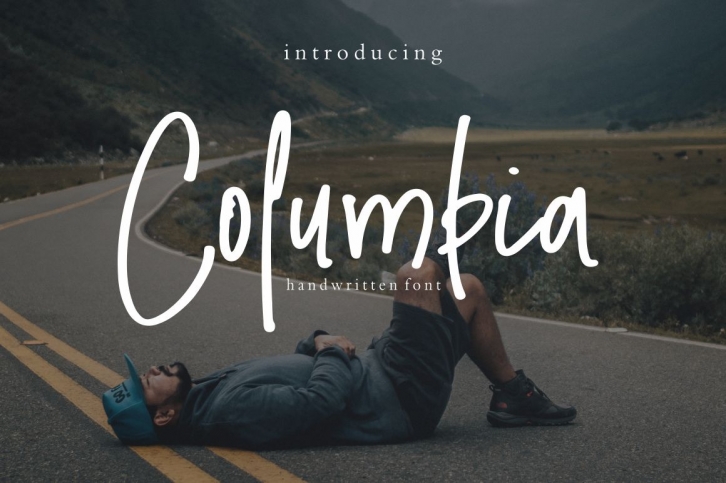
columbia is a great font that was designed by ultra letter. Imagine the amount of combinations you can create using this font! The archive is 8.77 MB and it was released on August 27, 2018. columbia looks beautiful on wedding invitations, greeting cards, logos, posters, labels, t-shirt designs, logos, business cards and is perfect for use in ink or watercolor works, fashion, magazines, packaging and food menus, children's books and more!